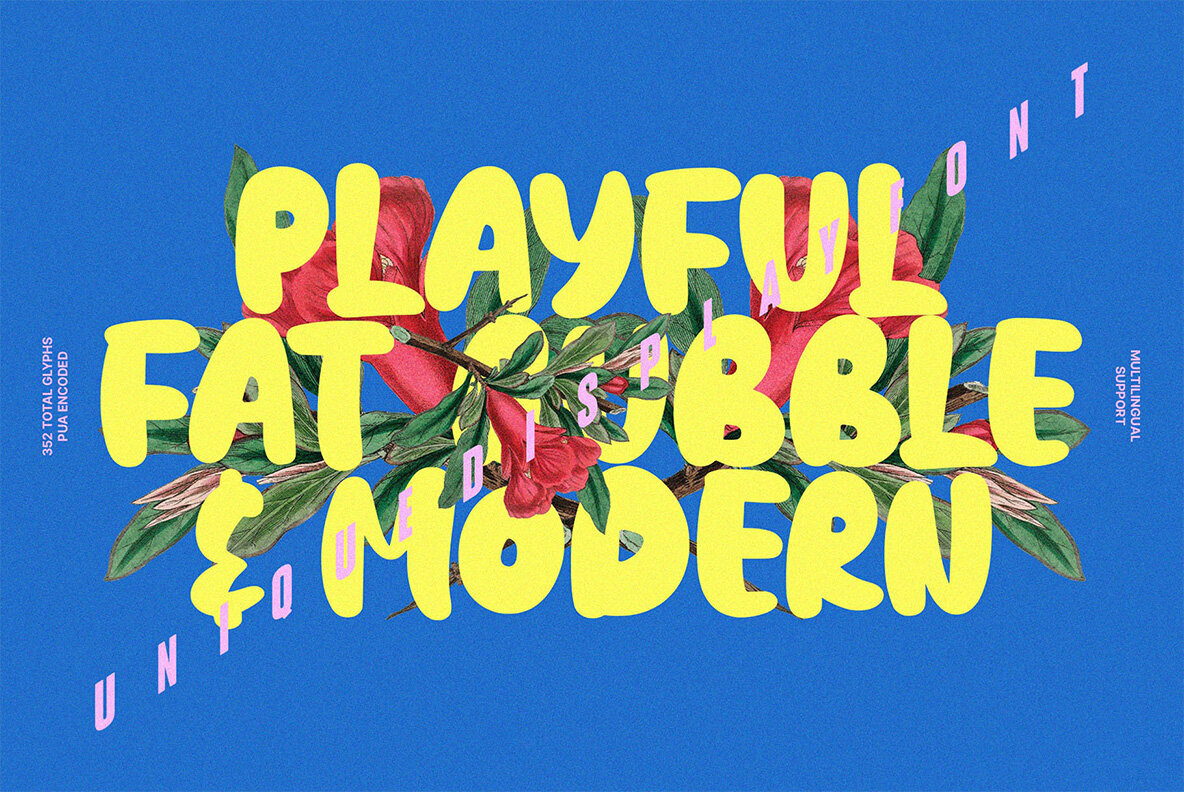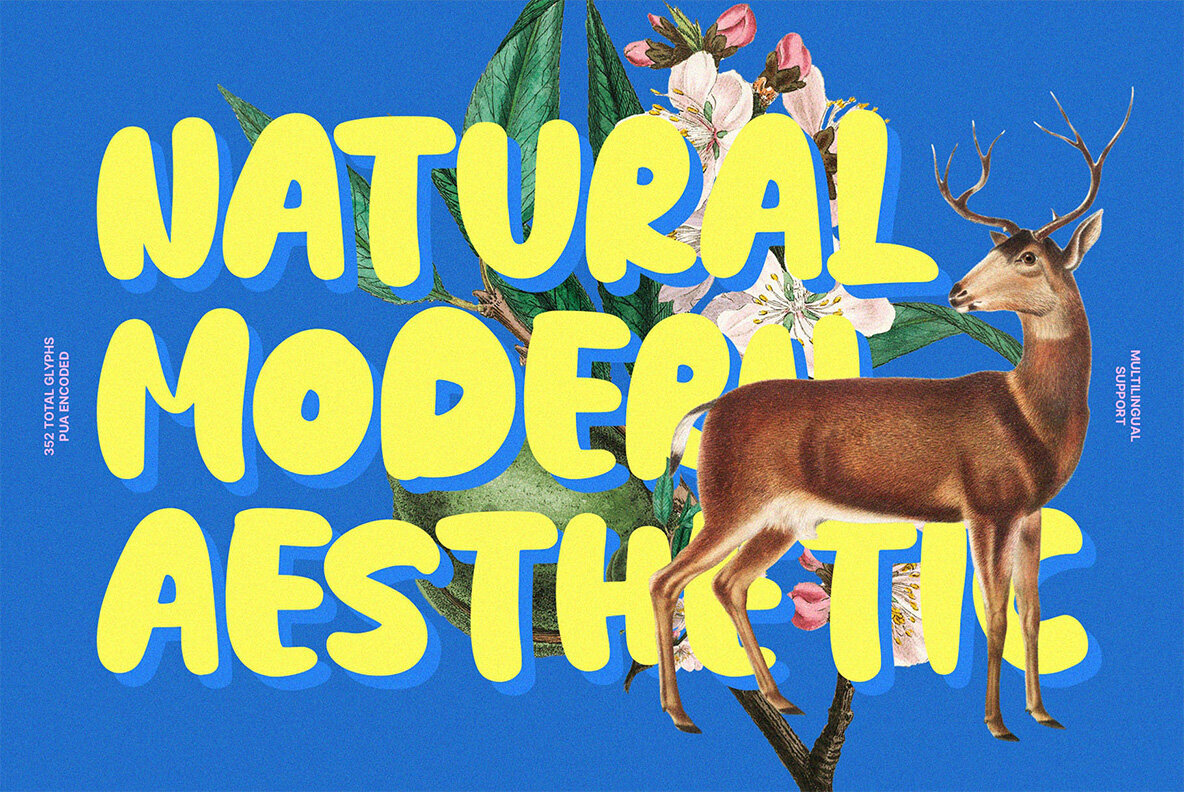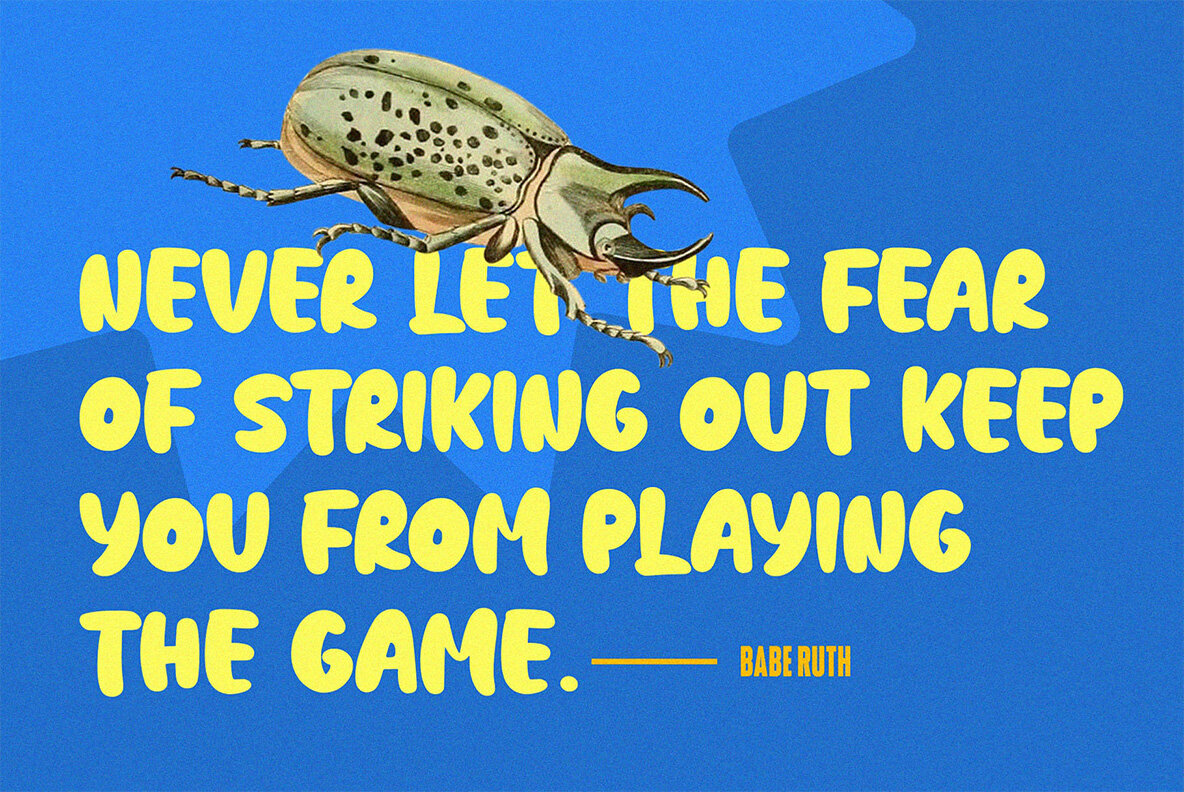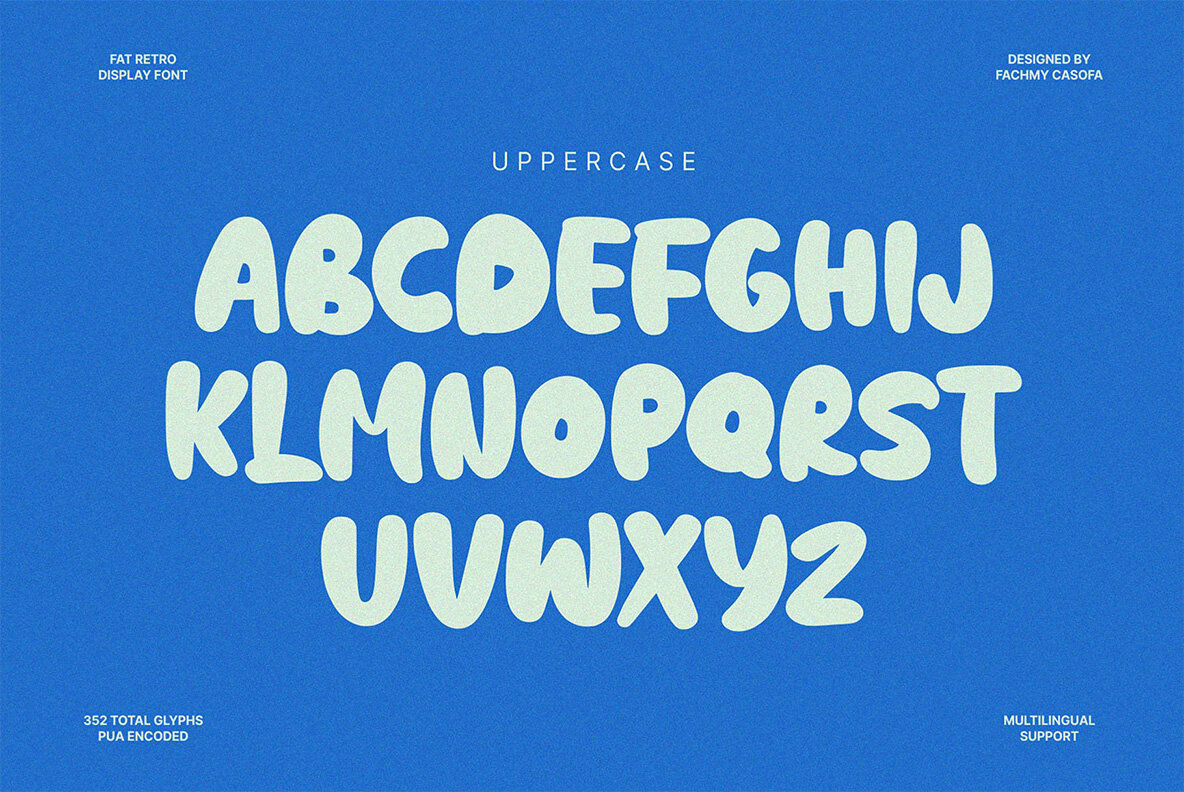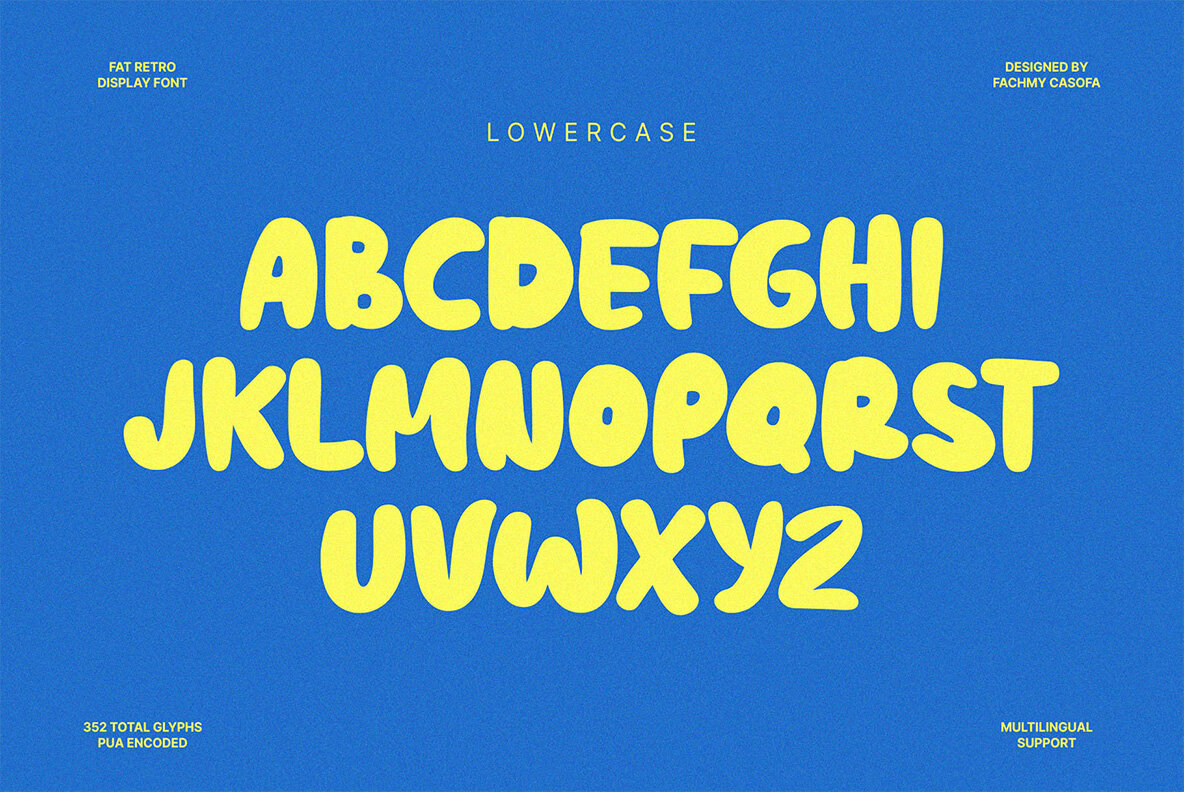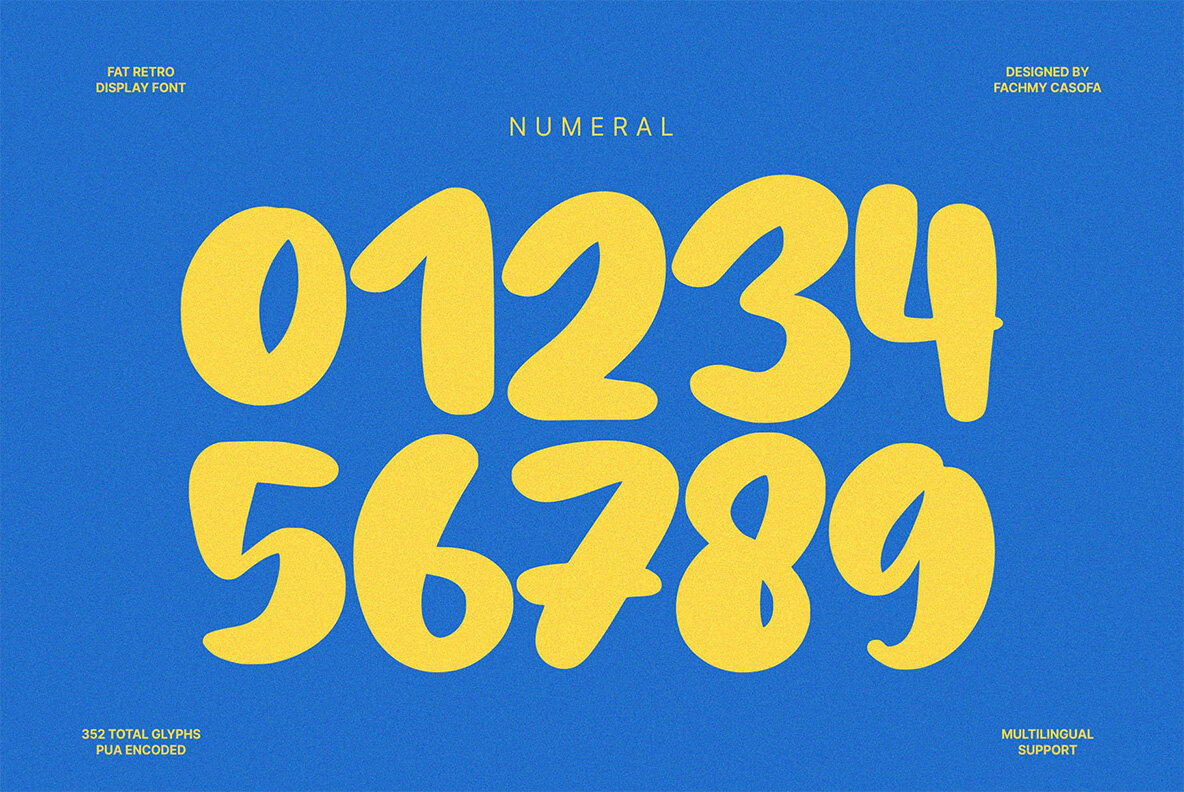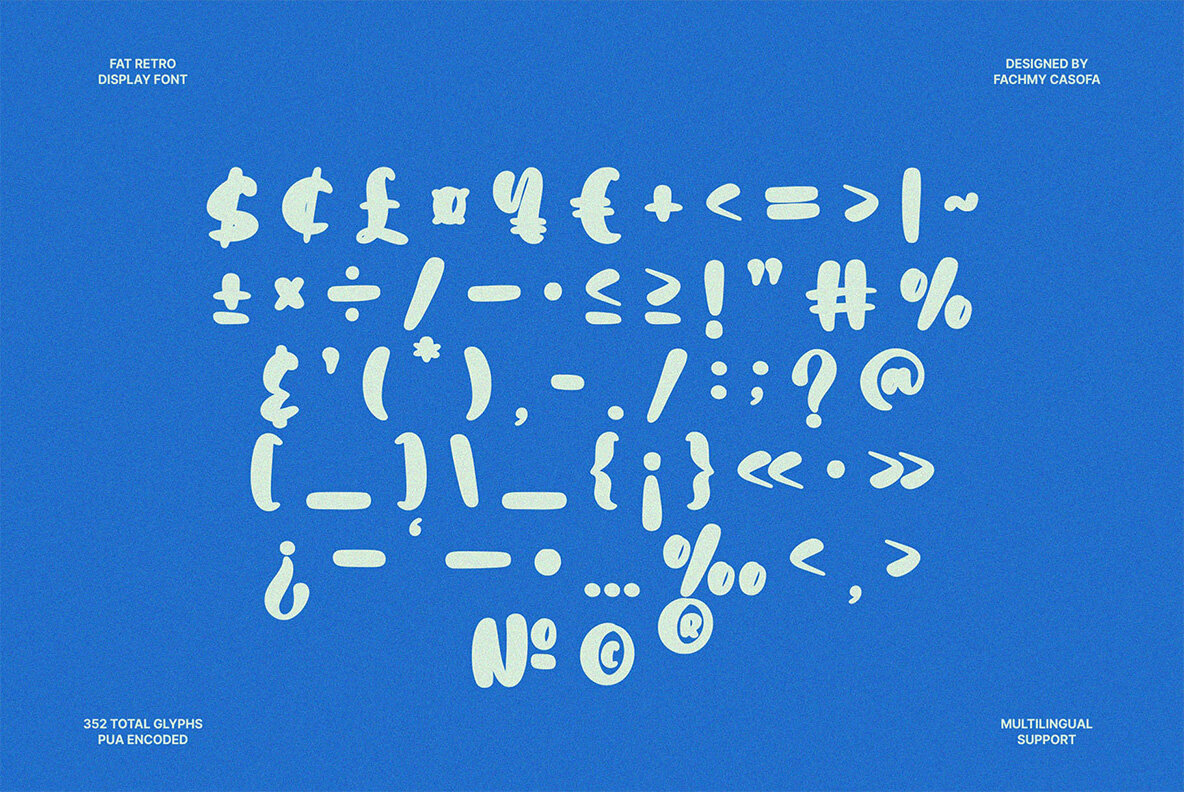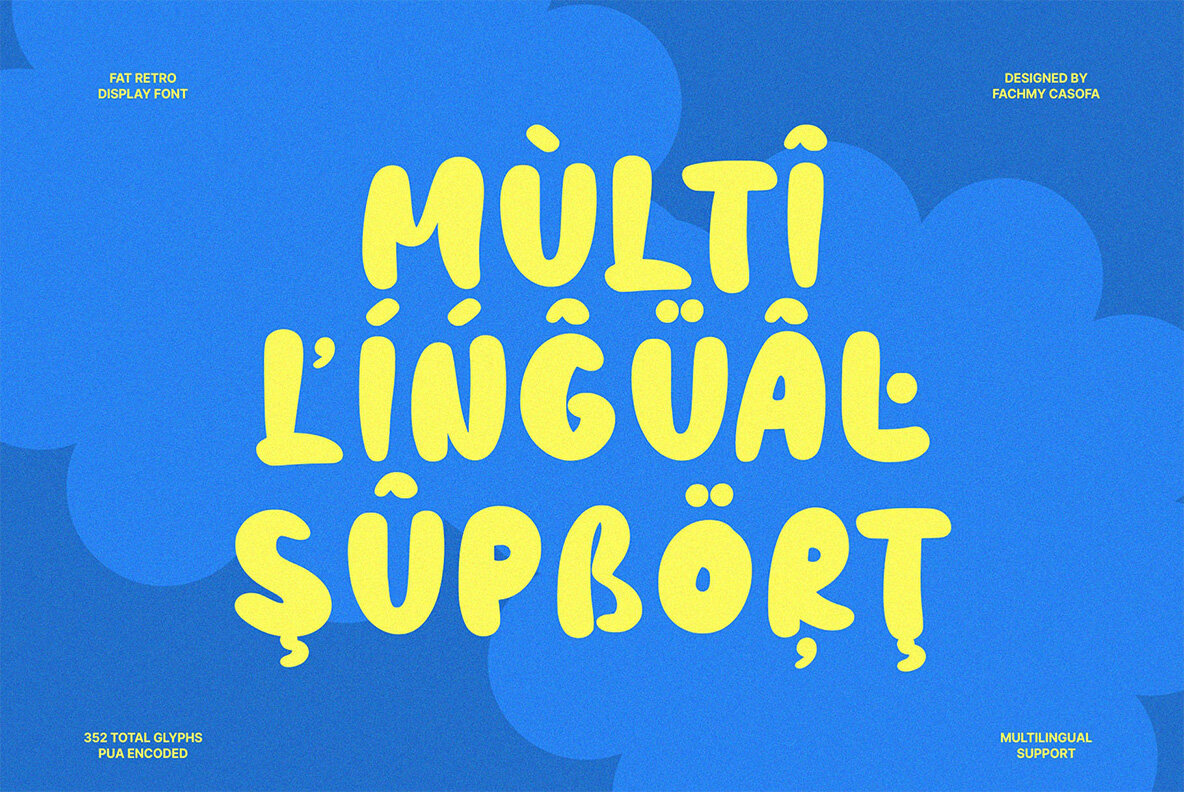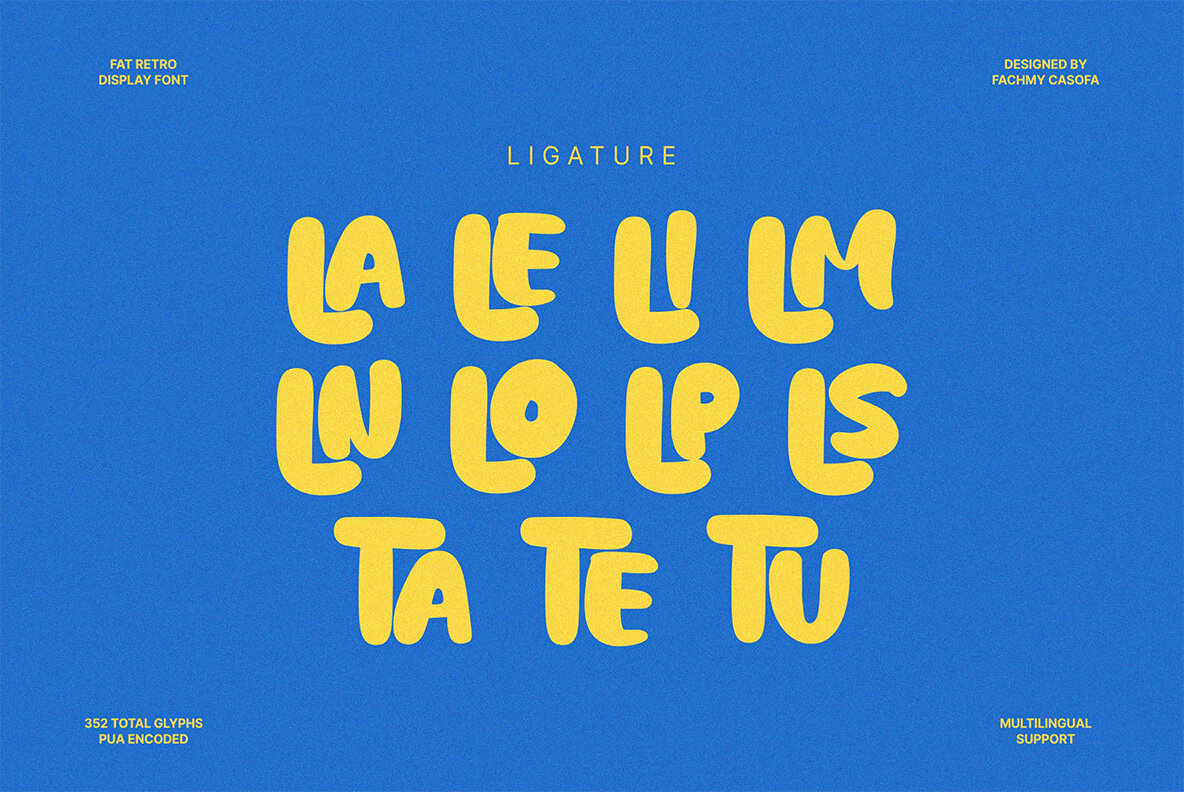
NCL Fatboy Onishuke Font
NCL Fatboy Onishuke Regular
NCL Fatboy Onishuke is a bold playful fat retro display font. Masterfully designed to become a true favorite, this font has the potential to bring each of your creative ideas to the highest level! It was purposely crafted to be used in large point sizes, although it doesn’t lose its magic in small point sizes. It is perfect for headline, billboard, magazines, website, titles, poster, branding, and logos. No matter the topic, this font will be an incredible asset to your fonts’ library, as it has the potential to elevate any creation. With this beautiful font, absolutely you can make your project stand out from the rest. FEATURES Contains 352 Glyphs Uppercase & Lowercase Numeral, Punctuation & Symbols Ligature Multilingual Support